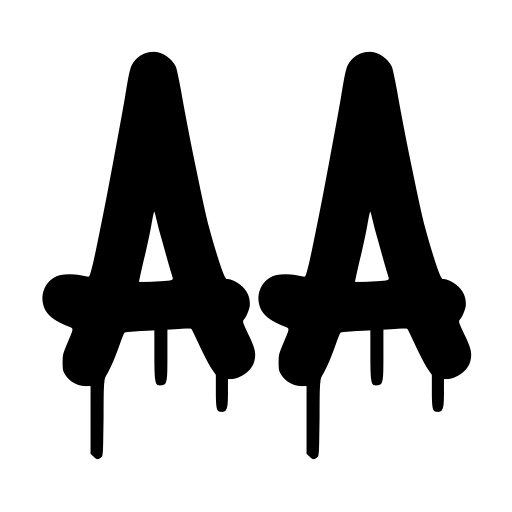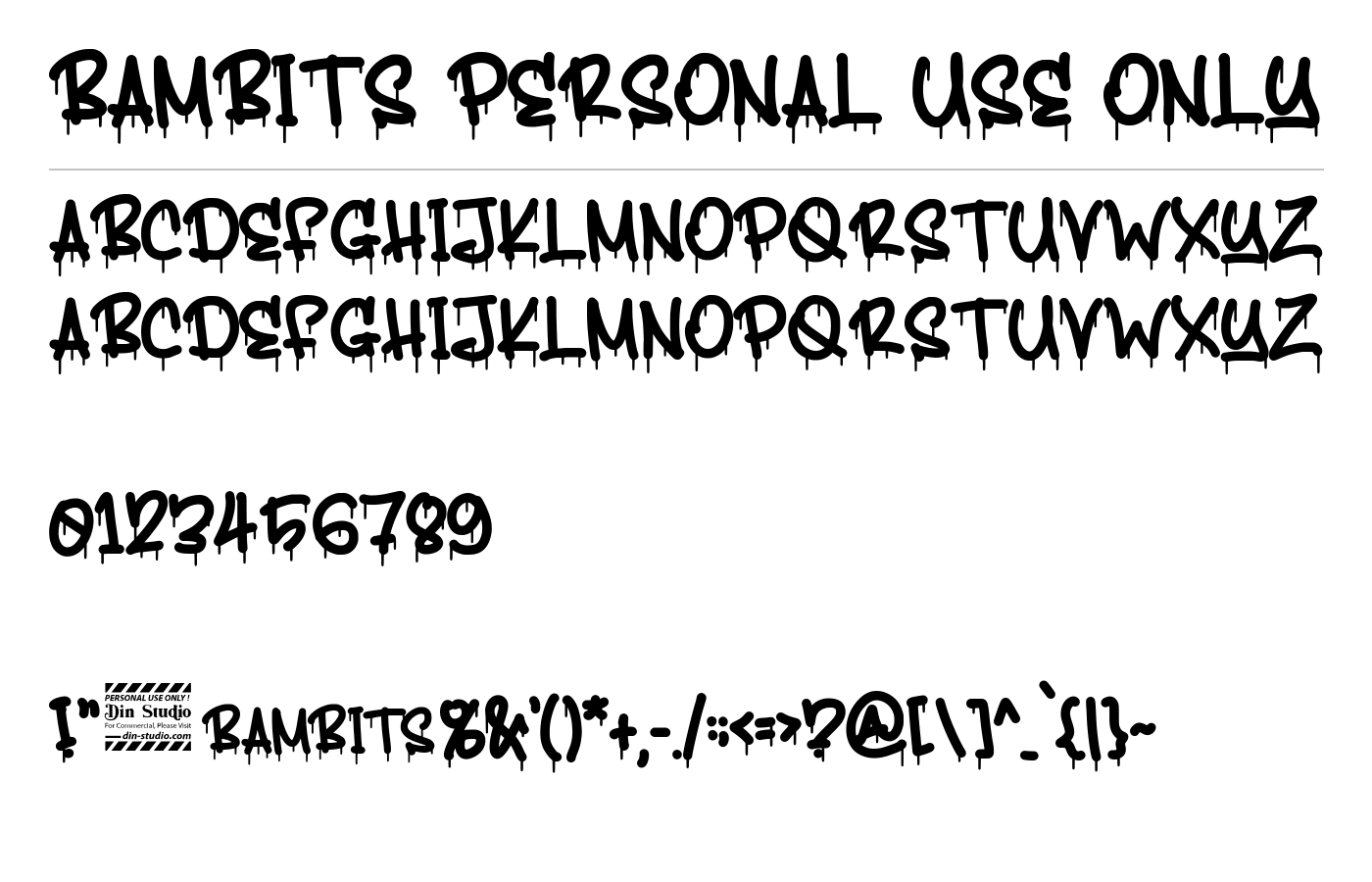
Bambits Personal Use Only is a playful, bold sans serif font with a graffiti-inspired style featuring dripping effects that give it an edgy, street-art vibe. Its uppercase, rounded characters combined with thick, consistent strokes create a casual yet striking look, perfect for designs that want to convey urban culture, creativity, or youthful energy. This font works best for posters, logos, and headlines where a strong, informal statement is desired.
Bambits Personal Use Only Font
About Bambits Personal Use Only Font
| Font family | Bambits Personal Use Only Font |